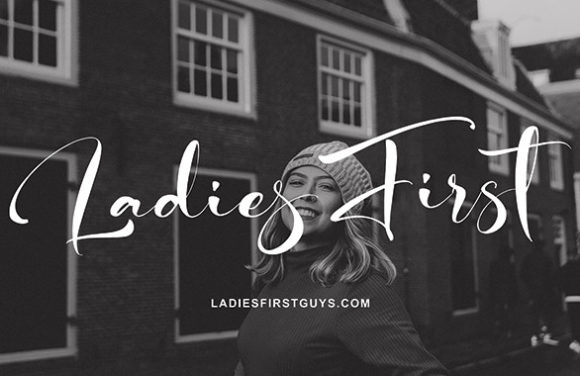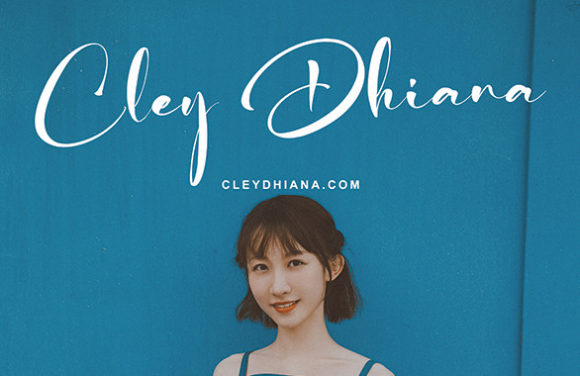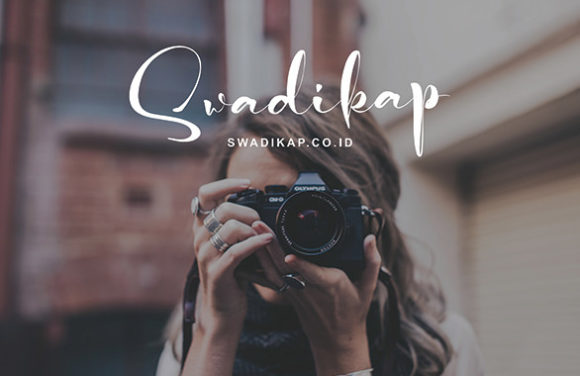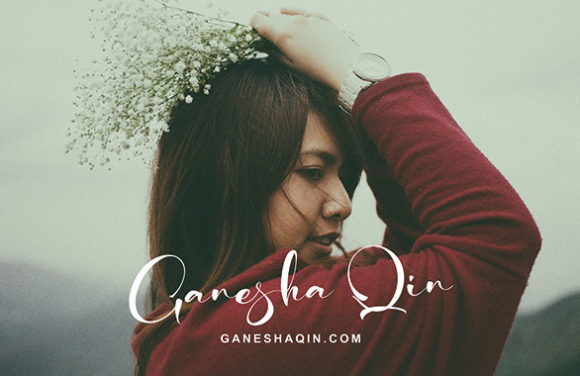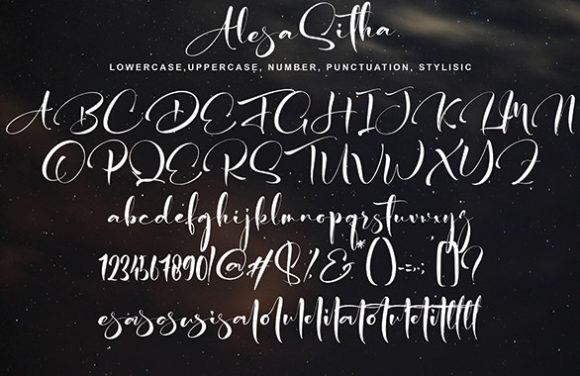
Introduction to Alesa Sitha Font
Alesa Sitha is an exquisite script font, carefully crafted in a calligraphic style.
It is perfectly suitable for projects that need an authentic vibe and a stylish, expensive look .
Key Features of Alesa Sitha Font